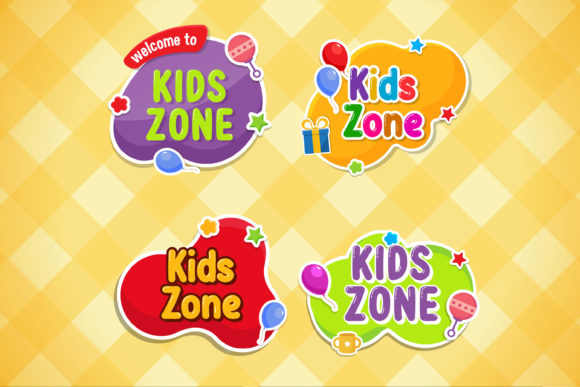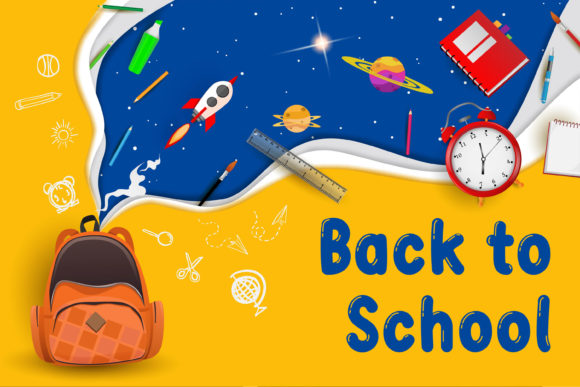
Bubble Bobble Font
db-ku.com - Script & Handwritten -- Bubble Bobble is such a cute font. Use it for any project that needs a cheerful and playful look!